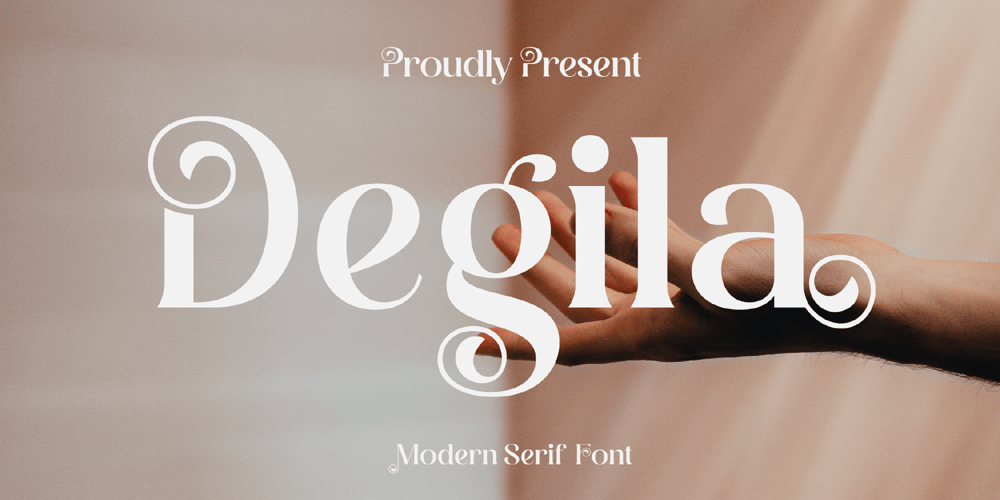
Degila Font Family was designed by Heru Utama Putra and published by Letterena Studios. Degila contains 2 styles and family package options. Degila is a cool and trendy serif font. It is PUA encoded which means you can access all of the glyphs and swashes with ease! Add it to your most creative ideas and notice how it makes them come alive.